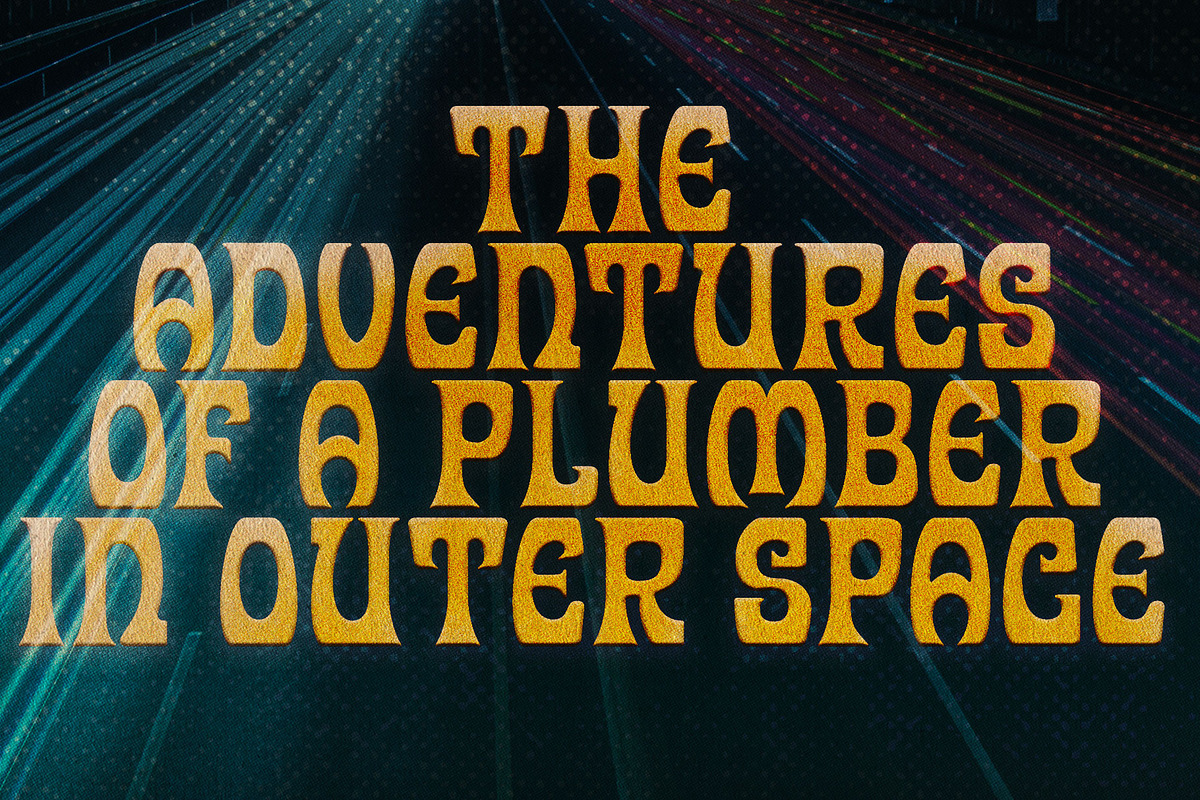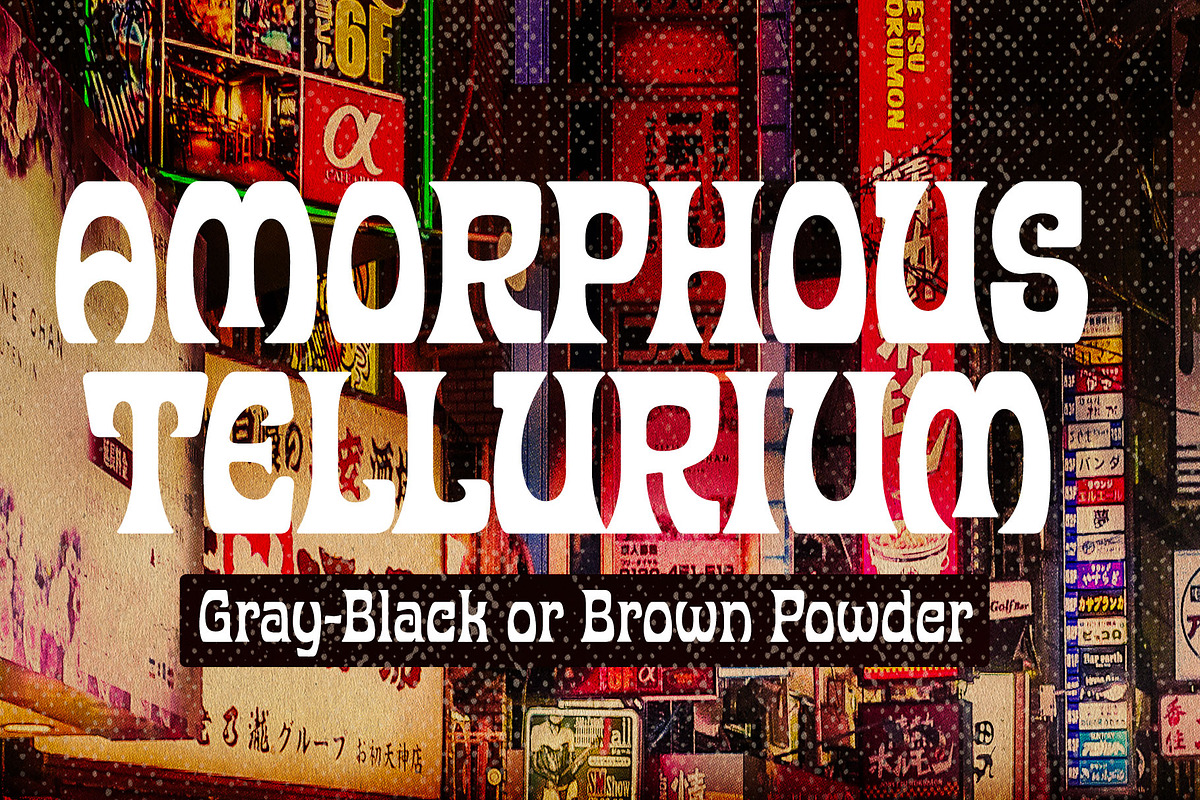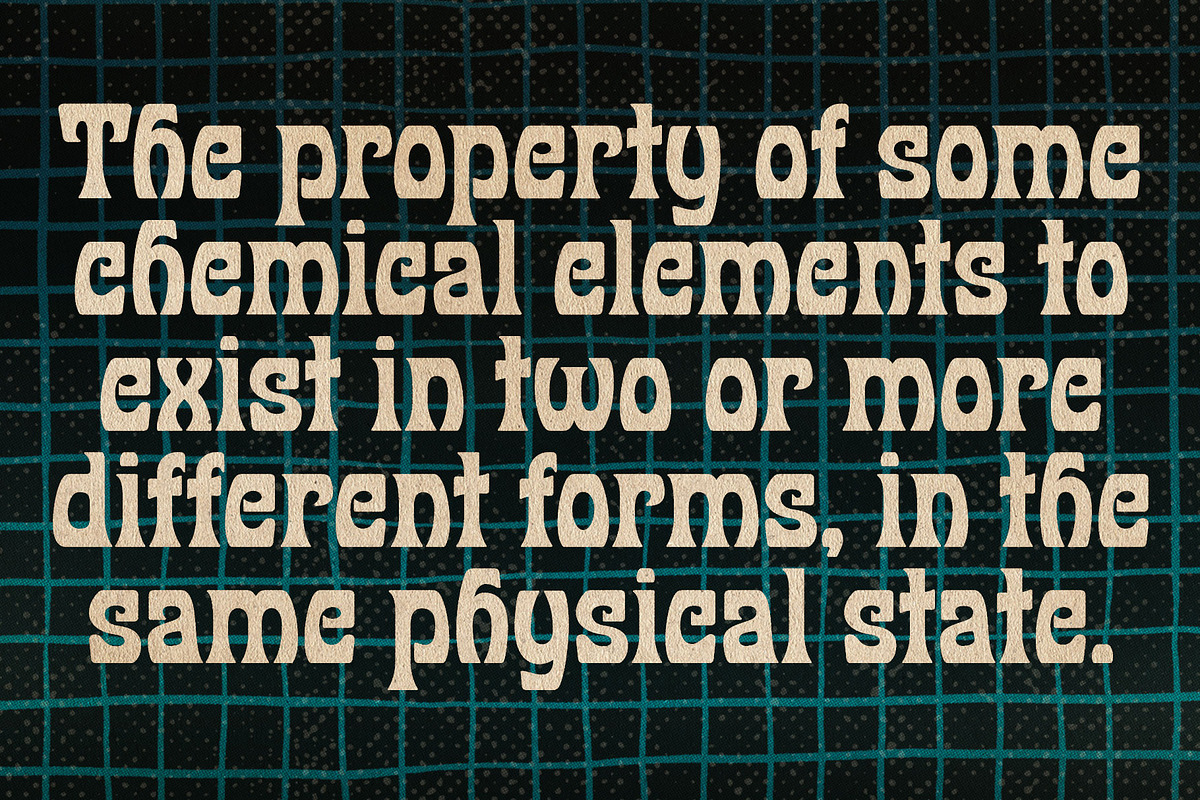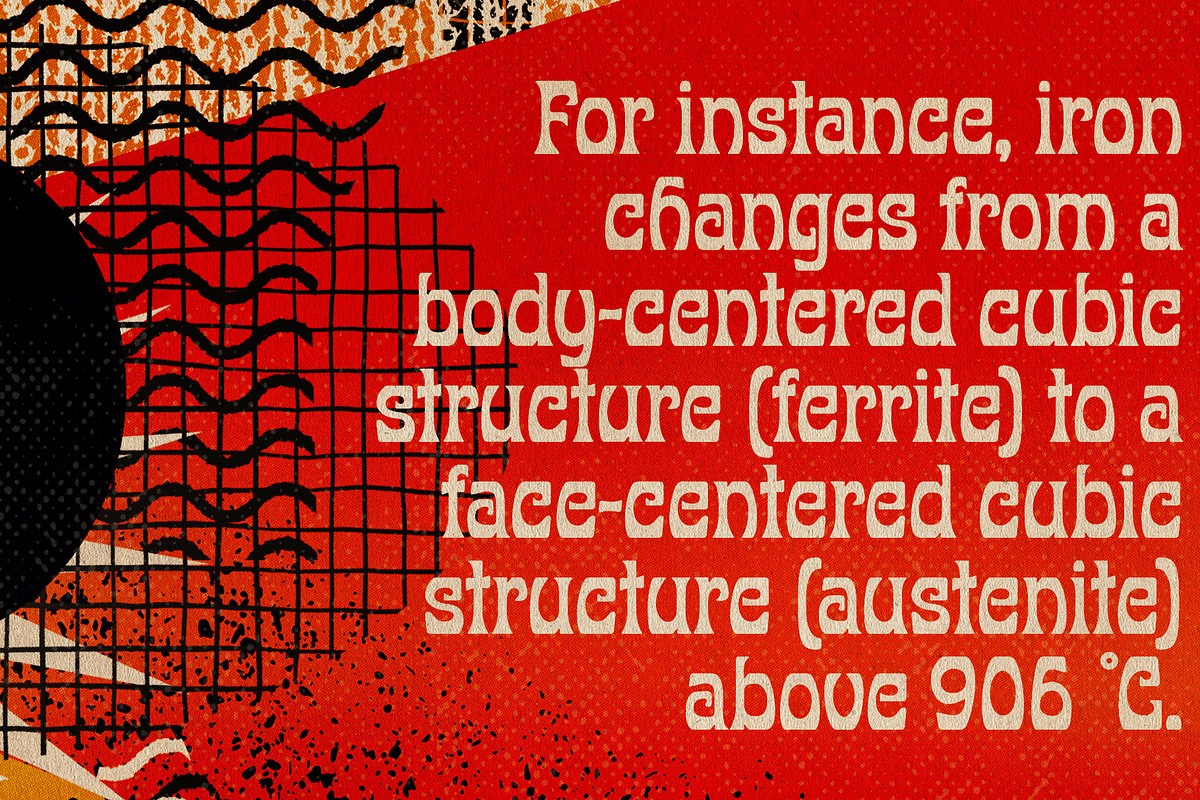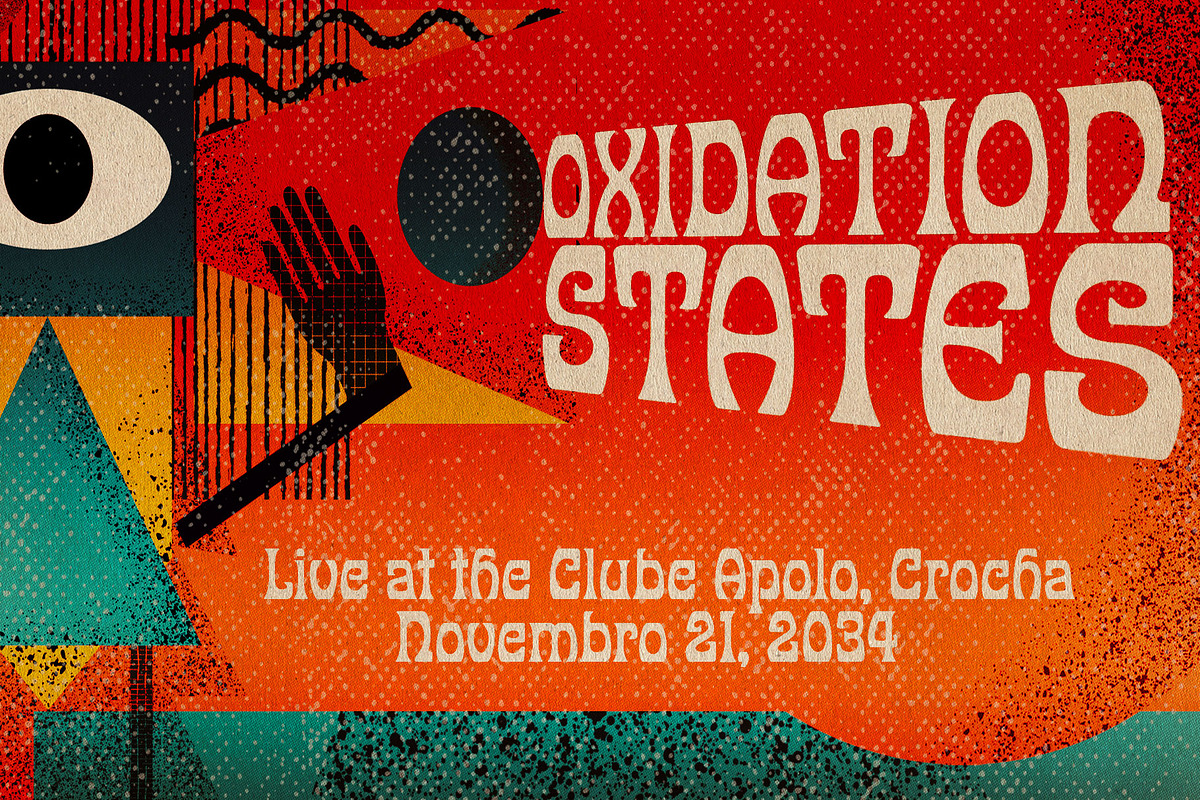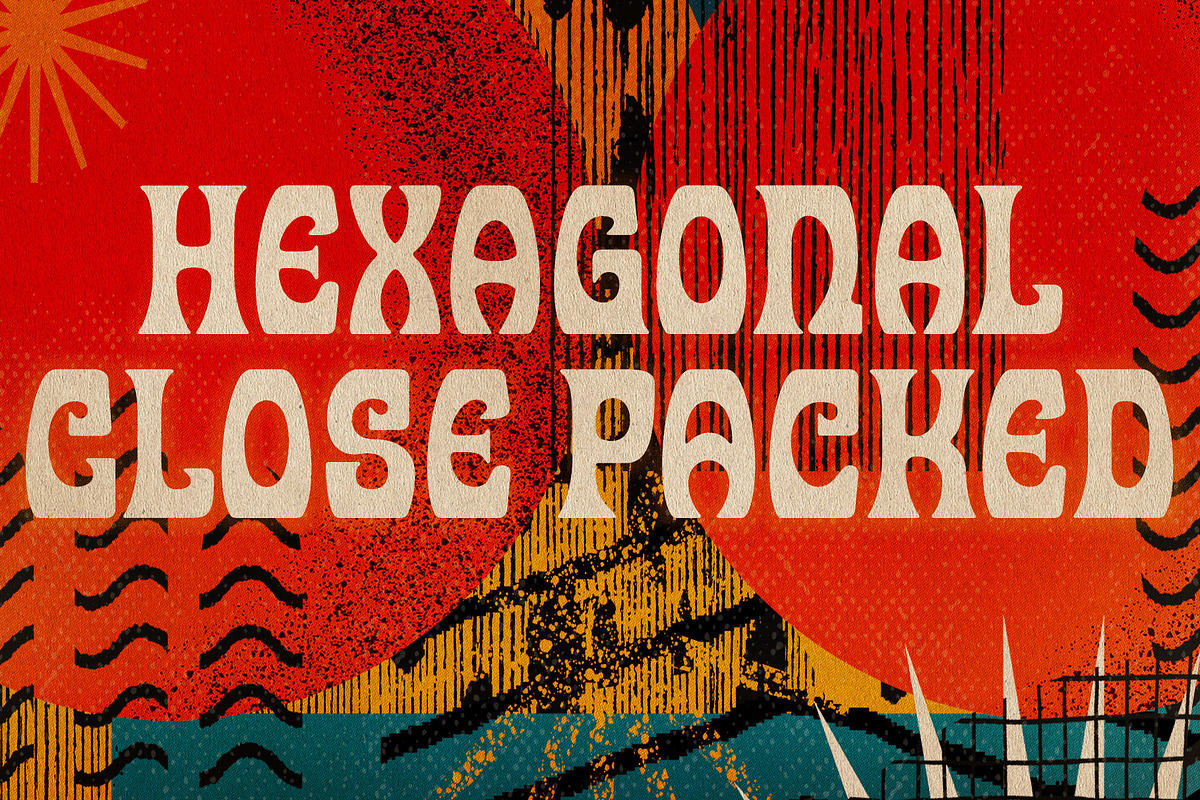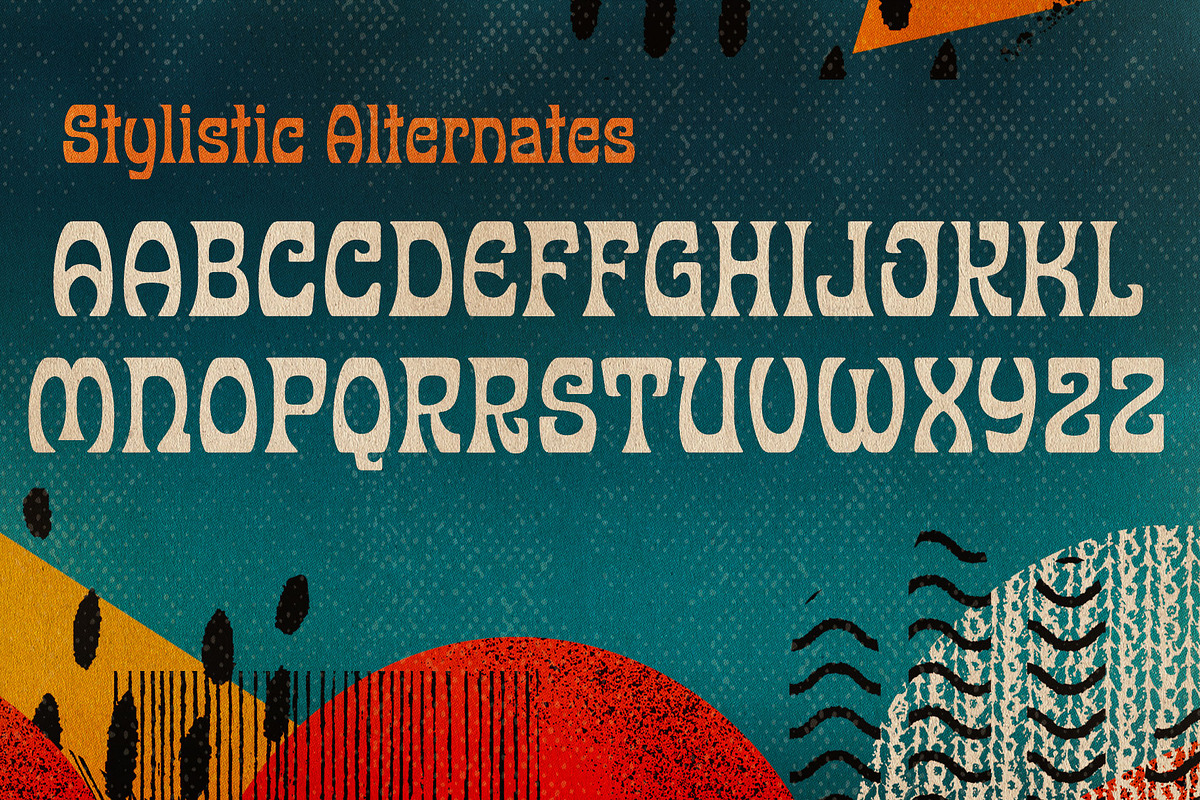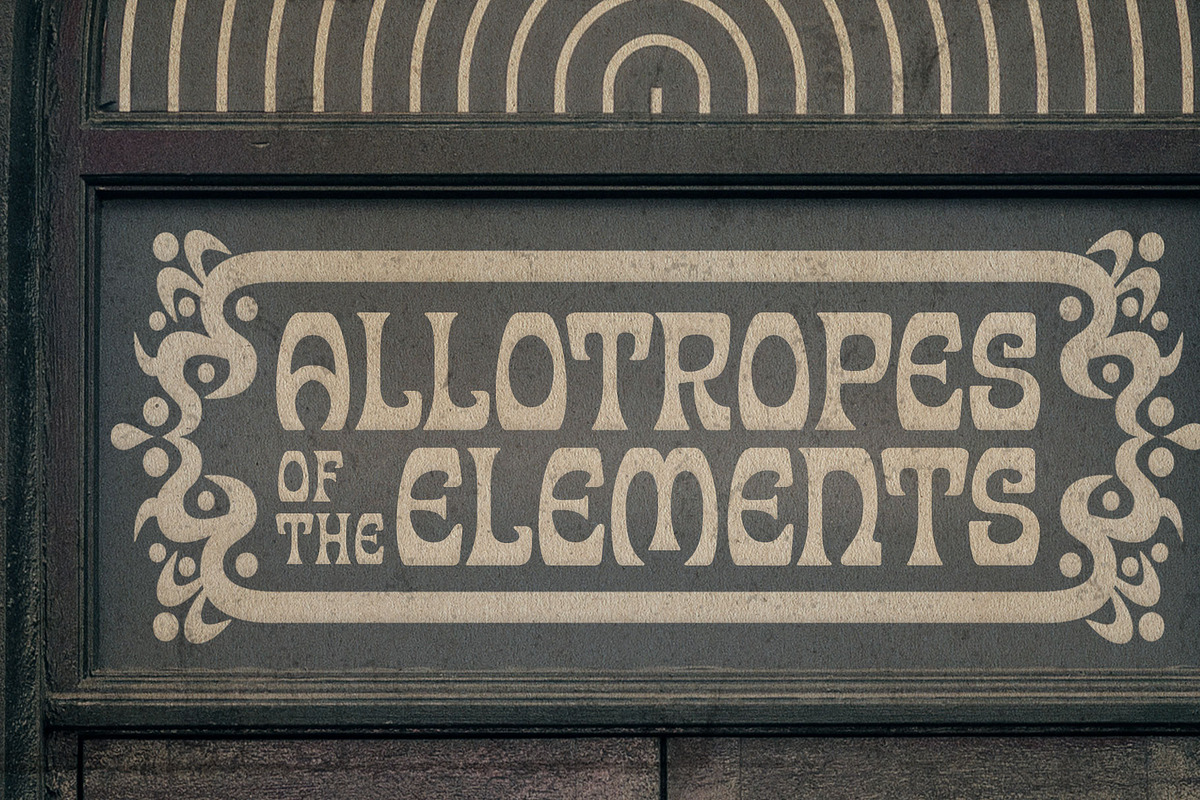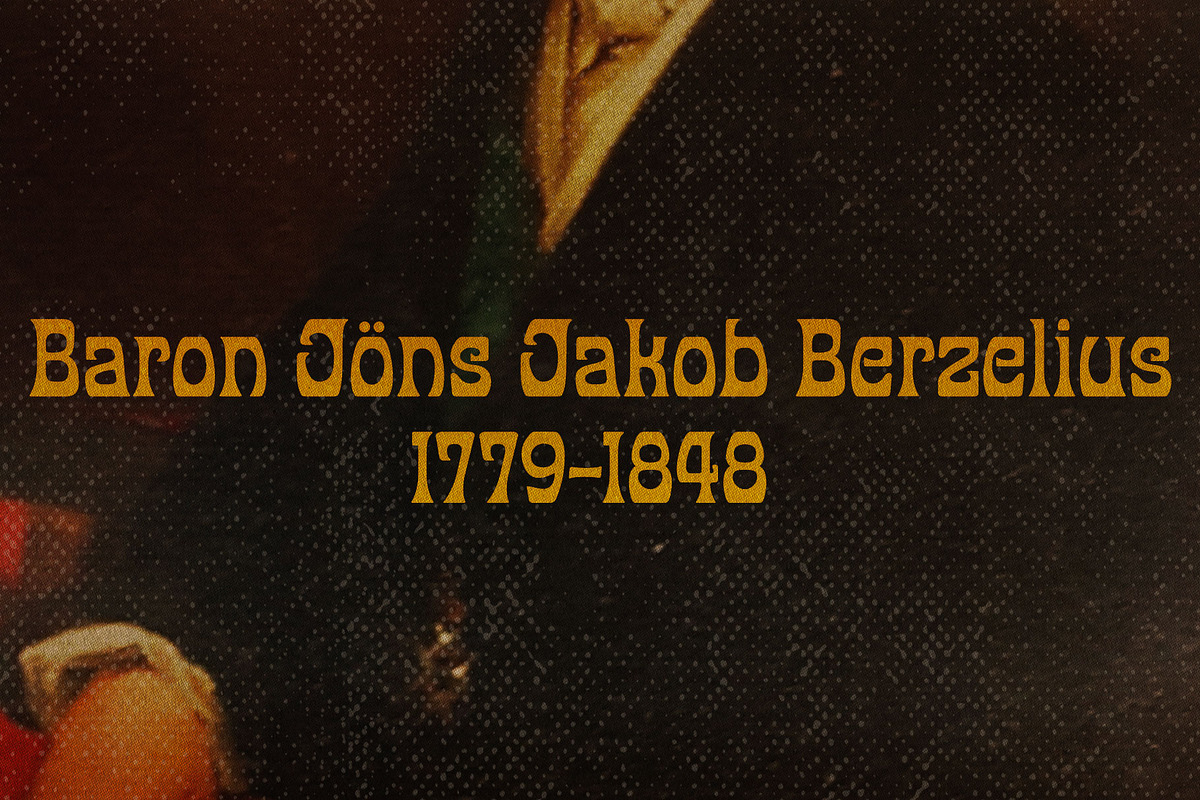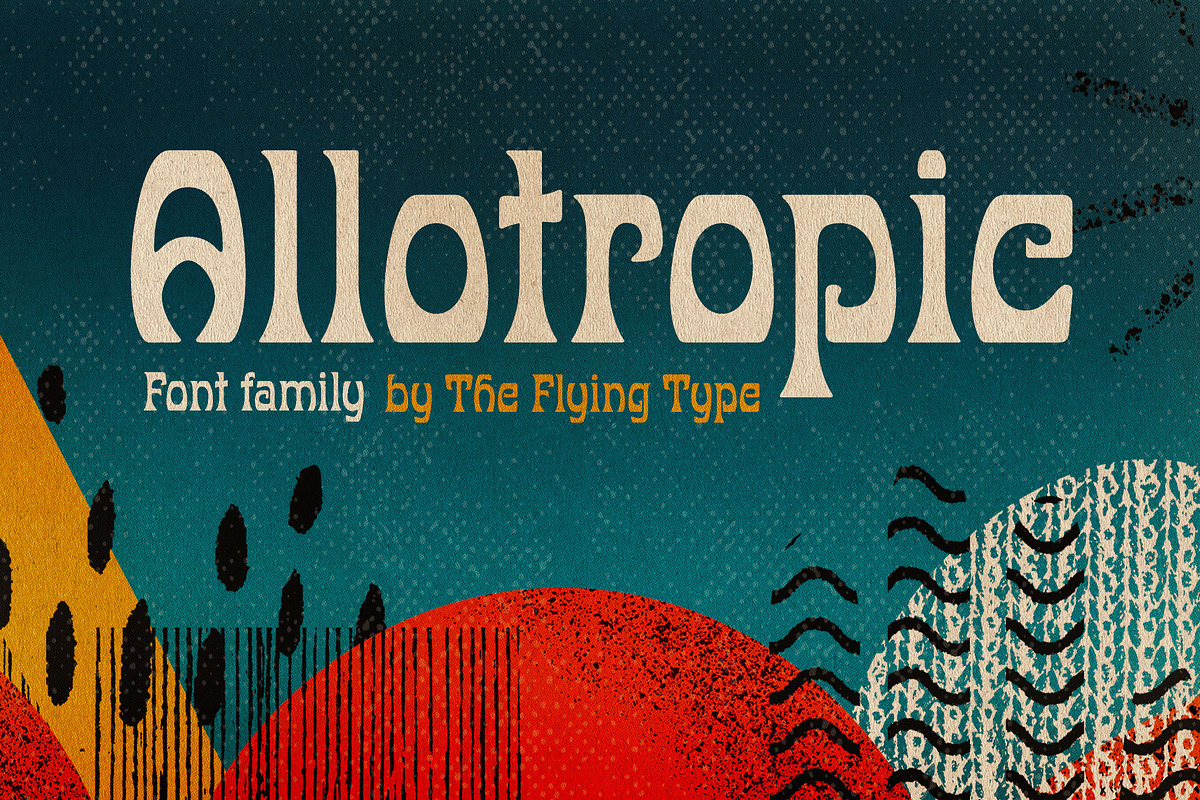
Allotropic | Expressive Retro Family
Allotropic is a pretty decorative face with a remarkable art nouveau flair. It loosely draws inspiration from a 1914 untitled alphabet by J.M. Bergling, a then "Modern Alphabet", and from its interpretation by Photo-Lettering, from the sixties.
Allotropic comes in two styles, regular and bold, both with extended language coverage, as well as stylistic alternates and a couple of ornaments. It's decidedly a fab choice not only for vintage and retro designs (ça va sans dire!), but also for creative contemporary uses in print and on screen. Play it on book covers, packaging, branding, editorial, web, advertising, apparel, uses are endless. Just give Allotropic a go, let the inspiration flow and keep on creating!
The Allotropic family includes:
- Two widths: regular and bold
- Upper and lowercase glyphs
- Punctuation and Symbols
- Stylistic alternates for some letters
- Ornaments to make a frame